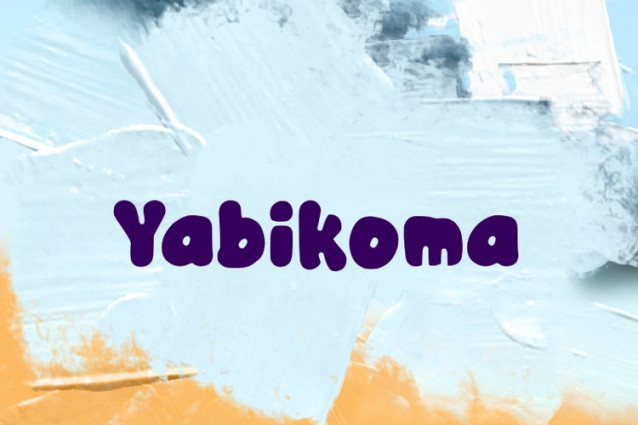
Yabikoma Font
Yabikoma Font is a chunky, comic, and cartoon display font. With its neat and joyful personality, this font will enhance any project you wish to create!